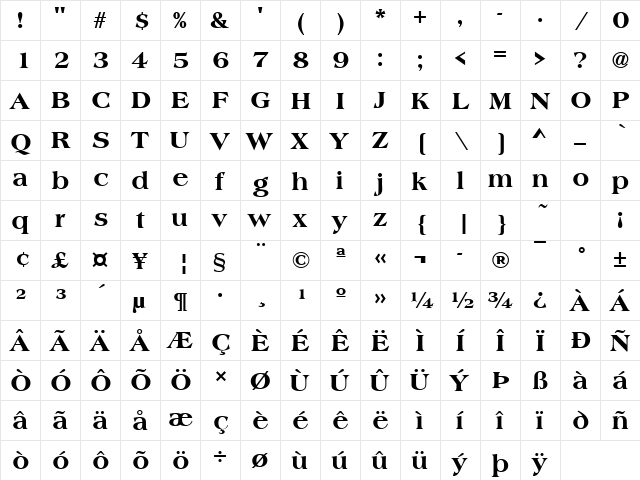
AmericanaTExtBol Regular
Design Context for AmericanaTExtBol Typeface
AmericanaTExtBol is a composed and adaptable typeface that performs quietly and consistently across a wide range of design contexts.